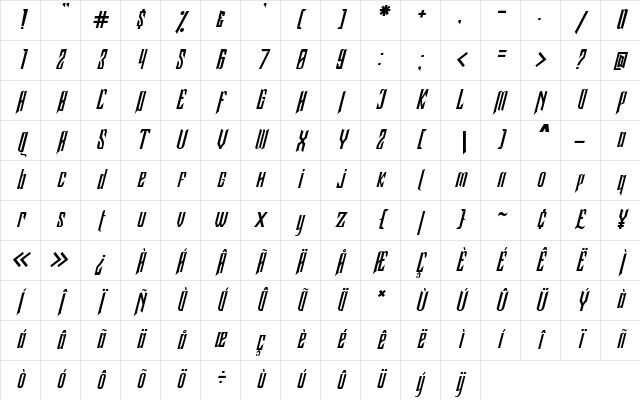
Samhock Italic is a composed and adaptable typeface that performs quietly and consistently across a wide range of design contexts. The slanted form adds forward momentum and visual energy.
Pro Tip: Use Samhock Italic for emphasis, pull quotes, and subheadings where its slanted energy can add rhythm to the layout.